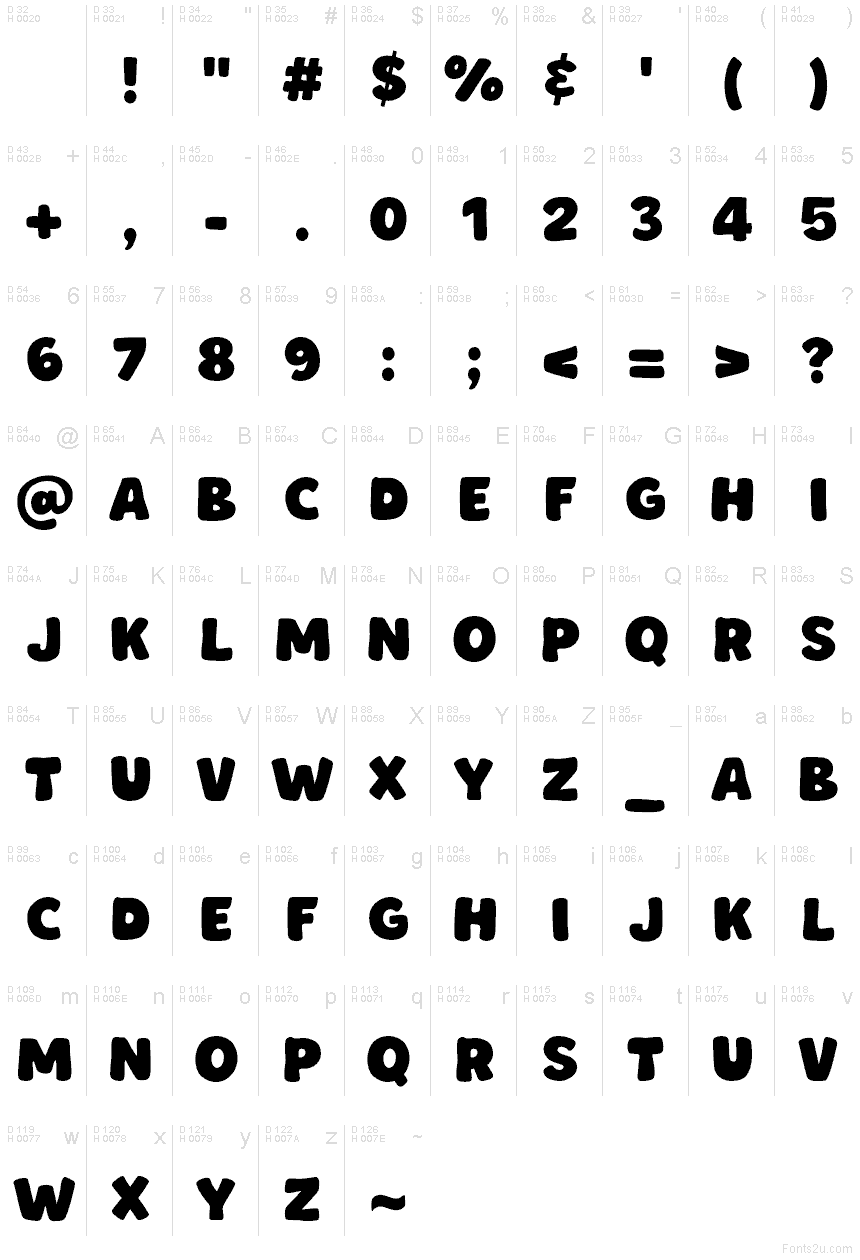
Milk Days
Milk Days font by MJType is a free cartoon display typeface with letters that look soft, puffy, and slightly wobbly, like they’ve been drawn with a chunky marker. The bold, rounded shapes feel friendly and huggable, filling space with a thick, inky presence that still reads clearly at a glance. There’s an easy, hand-crafted charm here that makes every word feel upbeat and full of bounce.
Using Milk Days, you can give kids’ book covers, snack packaging, birthday invitations, classroom posters, game titles, and YouTube thumbnails a big, playful voice that’s impossible to miss. This free font works beautifully in oversized headlines and short phrases where its chunky curves can shine. For supporting text, pair Milk Days with a clean geometric sans in a lighter weight to keep layouts readable while letting the bubbly letters stay center stage.